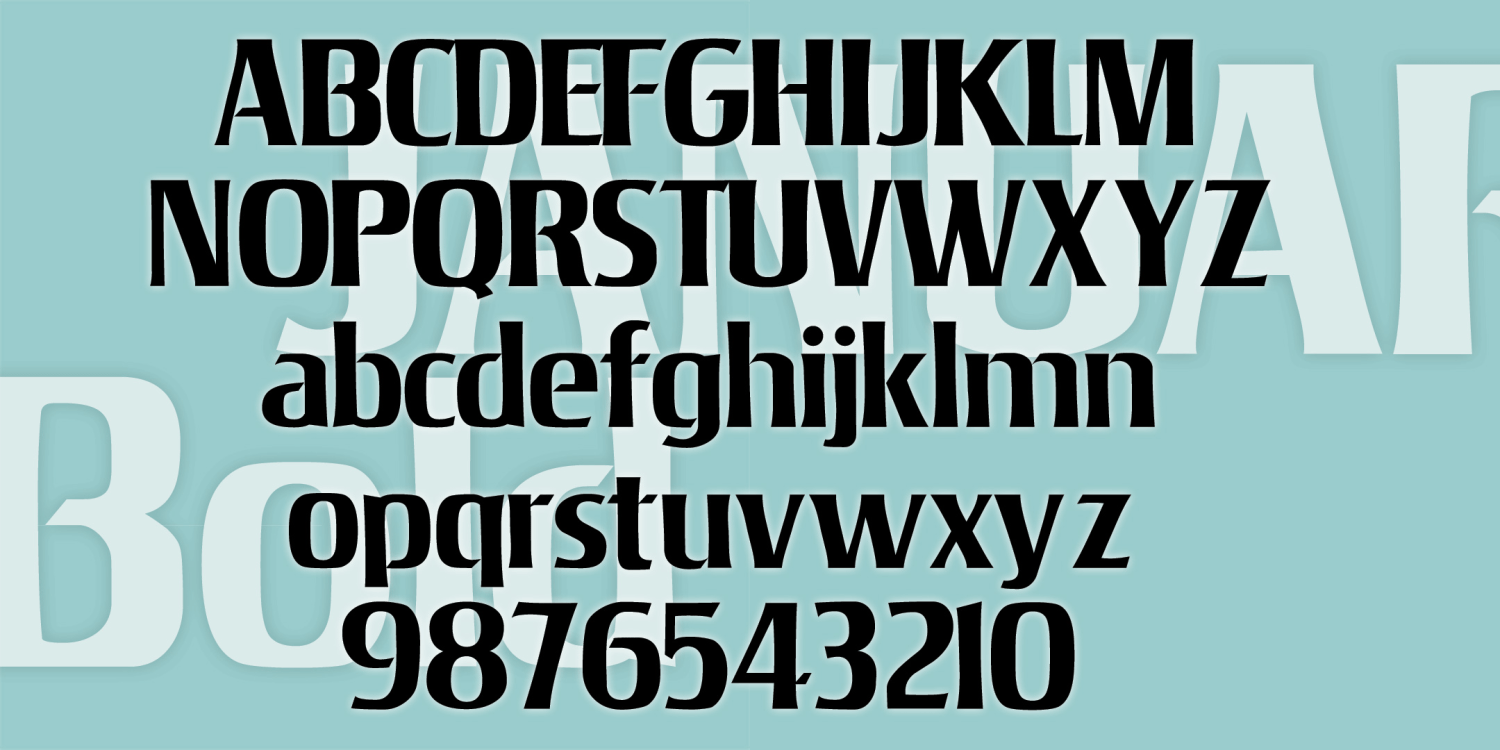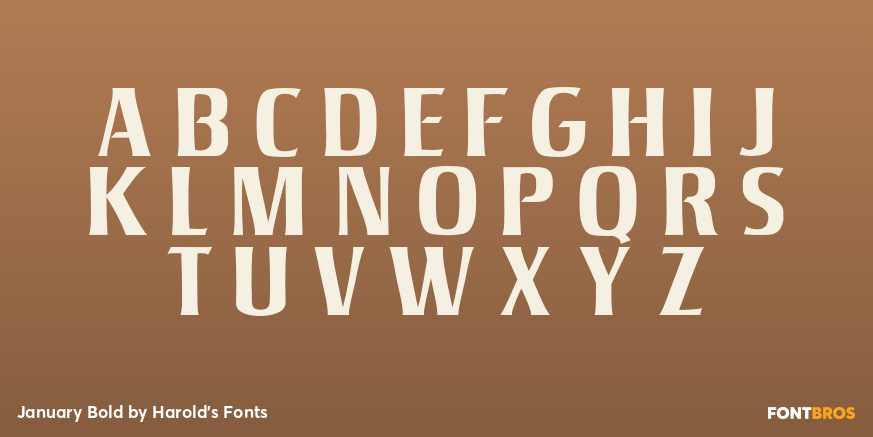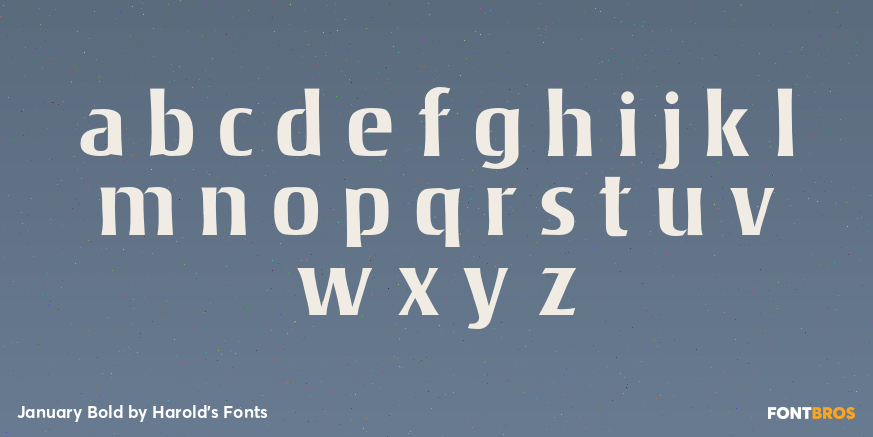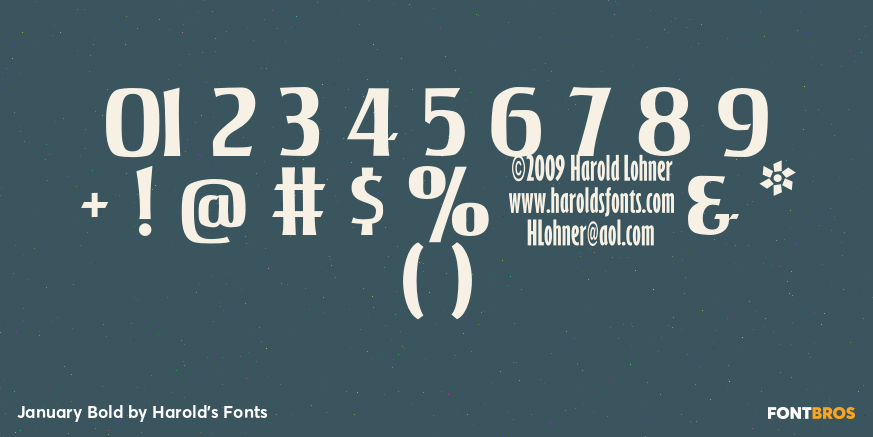
January Bold
JANUARY was inspired by the analog font Jana. The concave shapes of most characters and the notches on many give this sans-serif an elegant sparkle. There’s another digital version of Jana out there, but mine has been entirely redrawn and is very smooth. I’ve added two weights, Demi and Bold.
Jana was created by Richard D. Juenge and marketed by VGC after winning third prize the 1965 National Type Face Design Competition.
January Bold by Harold's Fonts